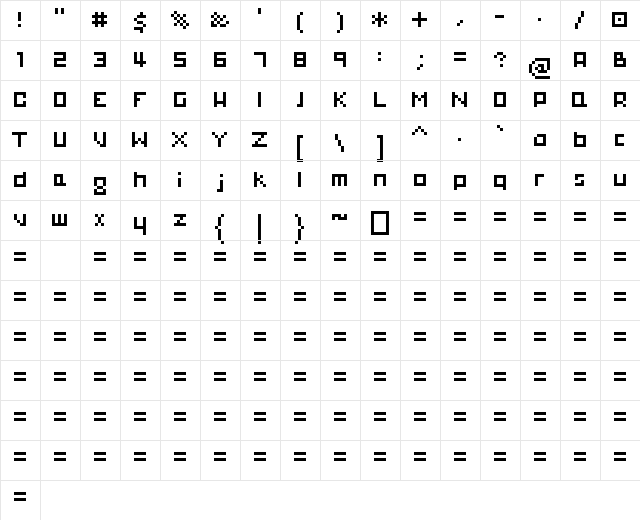
00Geometrix Regular
Design Context for 00Geometrix Typeface
00Geometrix is a composed and adaptable typeface that performs quietly and consistently across a wide range of design contexts.